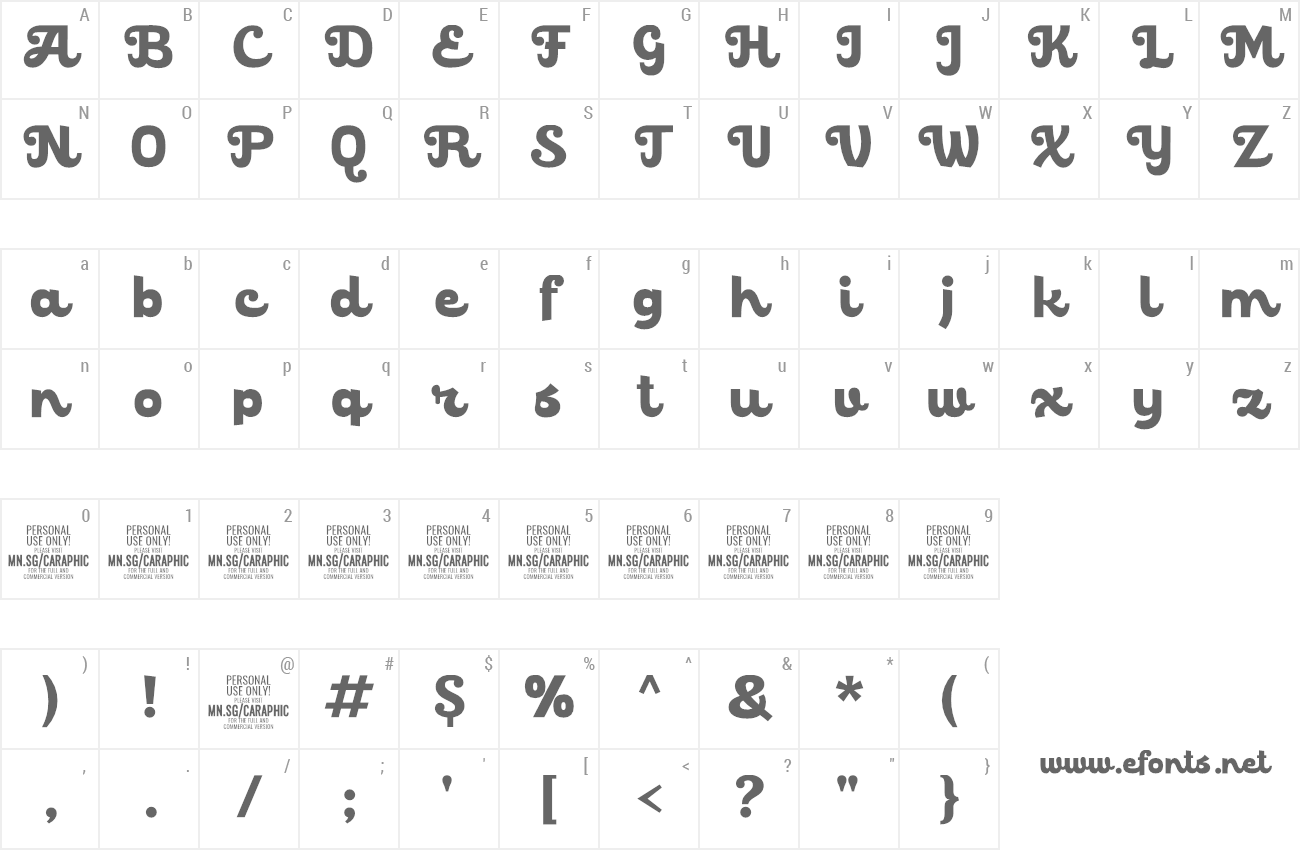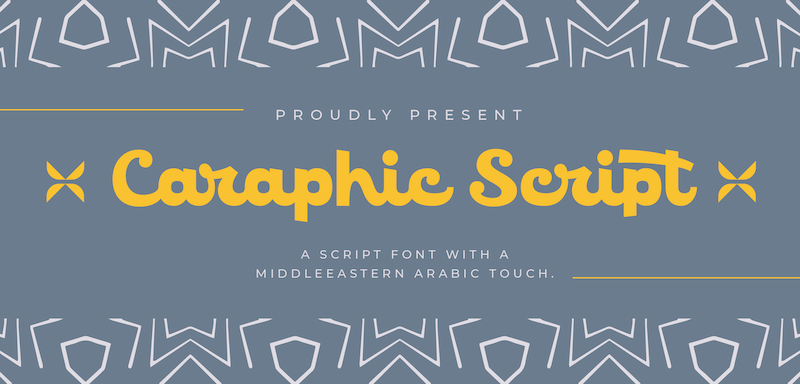
Preview and download Caraphic Script Font. Created by Måns Grebäck in Script Various styles with Free for personal use license.
NOTE: This font is for PERSONAL USE ONLY! To purchase a commercial license, visit: http://mn.sg/caraphic-script Caraphic Script marries the crisp elegance of script typefaces with the beauty of Middle Eastern design. Its unique character emerges from its seamless support for both Latin and Arabic scripts, bridging worlds and cultures in a single, harmonious typeface. For questions, please visit www.mansgreback.com/faq |